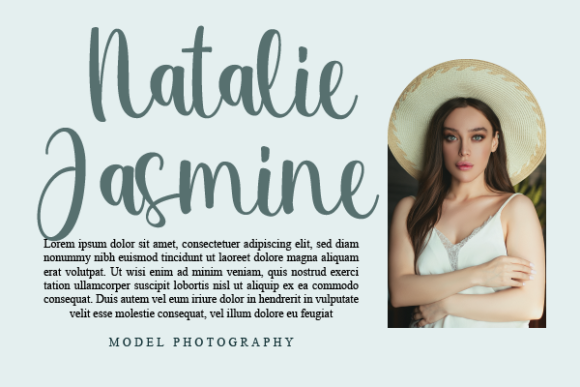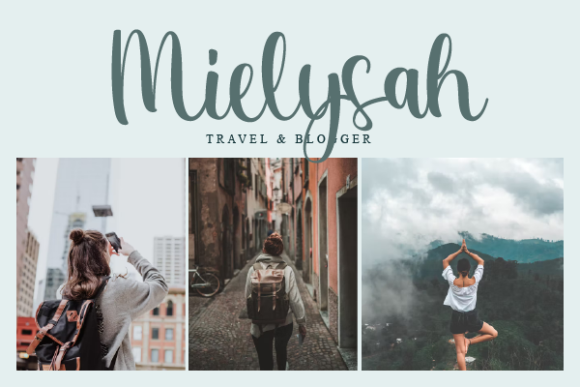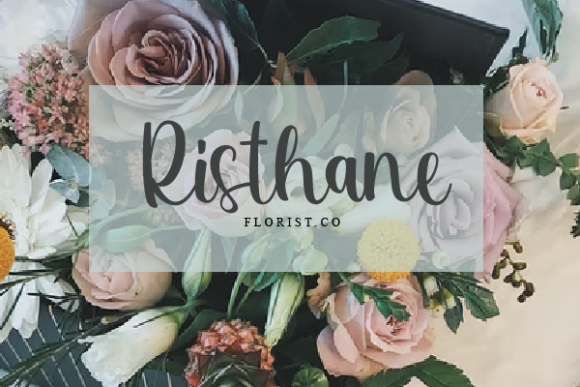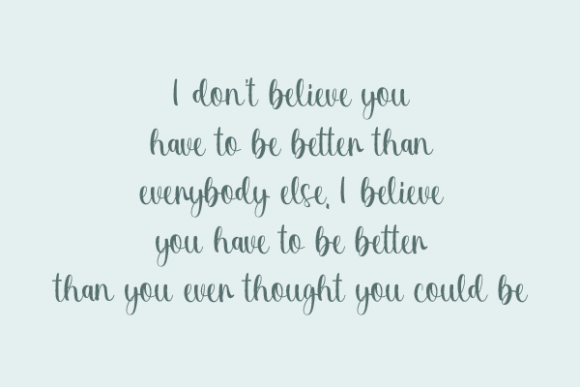
Underwood Kids Font
About Underwood Kids Font
“Underwood Kids” is a superb handwritten font designed to make your work stand out with its elegant and curvy lines. This font is a versatile choice, perfect for a variety of applications such as product packaging, branding projects, magazine covers, social media graphics, wedding materials, or simply for expressing words above different backgrounds.
The elegance of “Underwood Kids” lies in its handwritten style, which adds a personal and charming touch to your designs. The curvy lines contribute to a dynamic and graceful appearance, making it suitable for projects that require a balance of sophistication and playfulness.
Imagine “Underwood Kids” gracing product packaging, where its superb handwritten script enhances the overall visual appeal. The font’s elegant and curvy lines can turn ordinary packaging into a stylish and eye-catching representation of your brand.
In branding projects, this font becomes a distinctive choice, bringing a unique personality to your visual identity. Its versatility allows it to adapt seamlessly to various design elements, ensuring a cohesive and memorable brand presentation.
For social media graphics and magazine covers, “Underwood Kids” adds a touch of creativity and warmth. The curvy lines create a sense of flow, making it visually engaging and suitable for a wide range of content.
Whether you’re working on a wedding invitation or looking to express words creatively above different backgrounds, “Underwood Kids” offers a superb solution with its elegant and curvy lines. Embrace the charm of this handwritten font to elevate your designs and make a lasting impression on your audience.